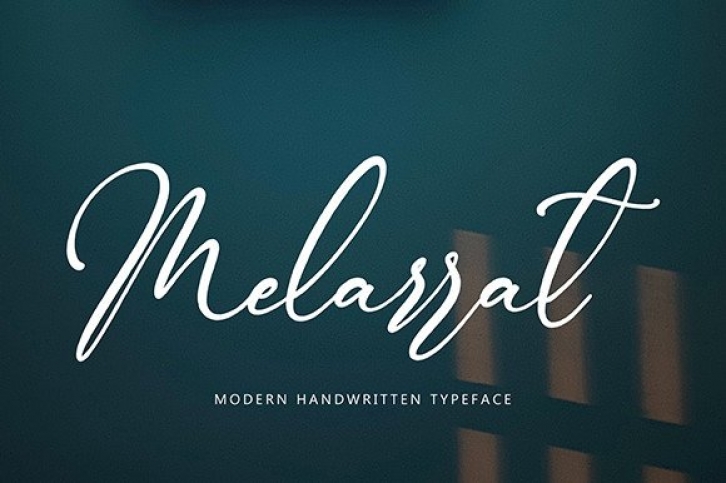
Melarrat is a delicate and elegant handwritten font. Its distinct and well balanced letters make this font a masterpiece. Fall in love with its incredibly versatile style and use it to create spectacular designs!